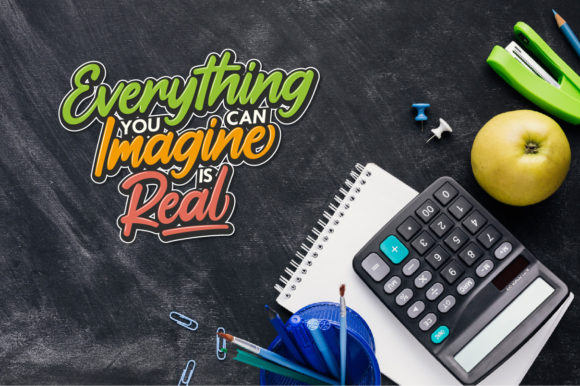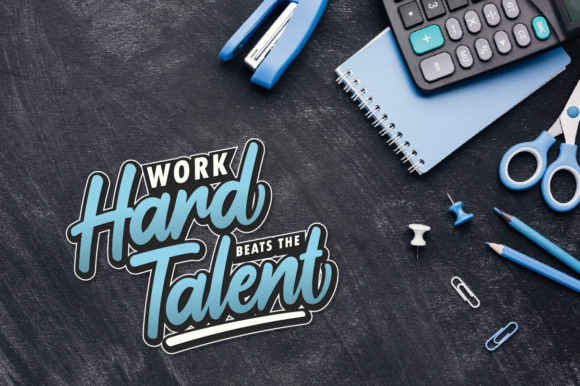
Aliensy Font
db-ku.com - Script & Handwritten -- Aliensy is a retro and bold handwritten font, crafted to give your headlines and logotype projects a stylish touch. This font reads as strong, confident, and dynamic and can add tons of nostalgic character to your designs.